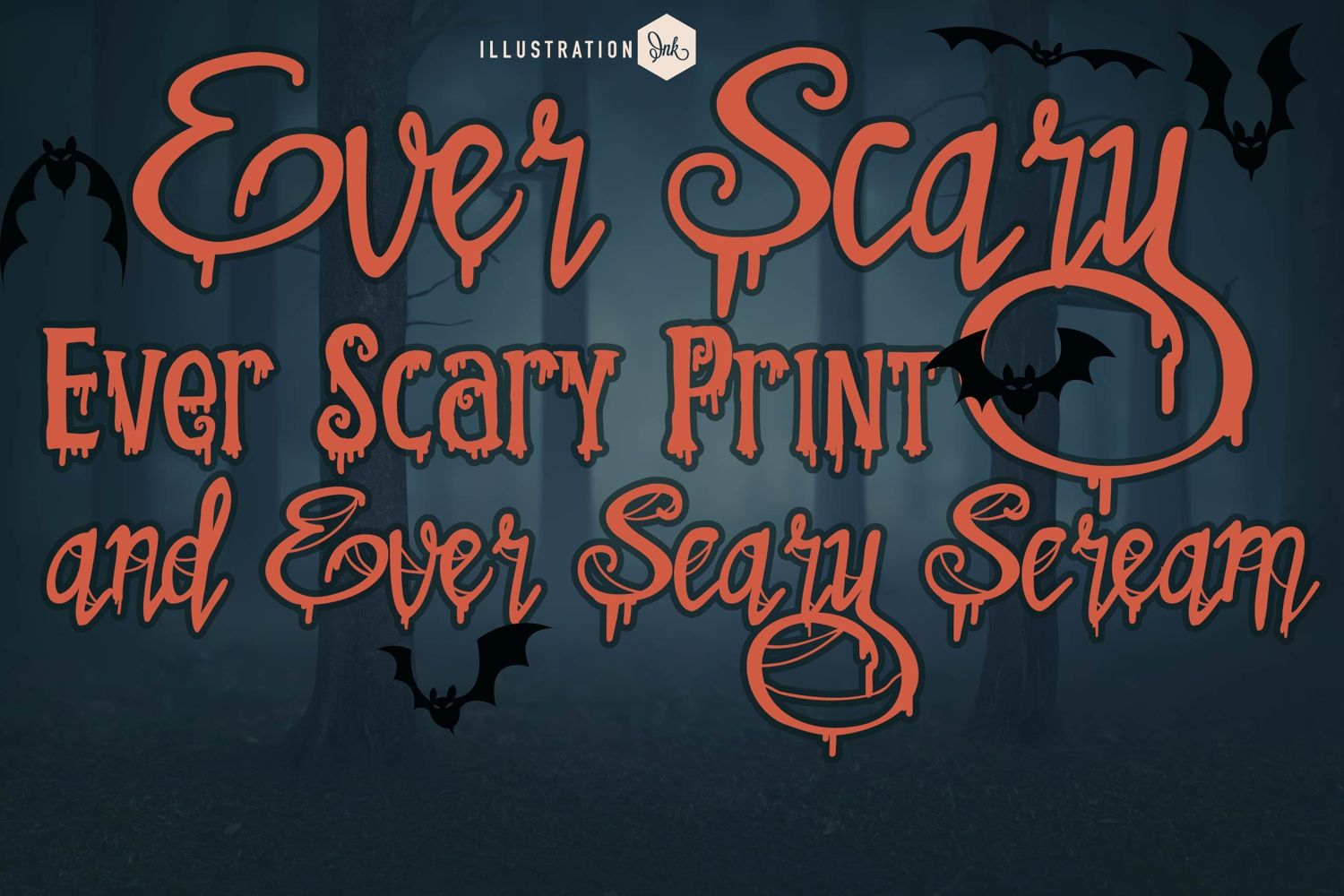
Ever Scary Font Trio
This hand-crafted font trio combines an oozy, drippy, hand-written script, a perfectly coordinated print and an extra webby script. With all family members combined of the 3 fonts, you get 12 fonts all together!
Hand-crafted fonts can be either formal or informal, and they can be used for a variety of purposes. Some of the characteristics of handwritten fonts include: The letters are not perfectly uniform in size or shape. There may be slight variations in the spacing between letters and words. The font may have a "wiggly" or "squiggly" appearance. The font may be difficult to read at small sizes. Handwritten fonts can be a great way to add a casual touch to your designs. They can also be used to create a sense of nostalgia or whimsy. However, it is important to choose a handwritten font that is appropriate for the project you are working on. A formal handwritten font may not be appropriate for a casual invitation, while an informal handwritten font may not be appropriate for a corporate document.
• The letters are not perfectly uniform in size or shape.
• There may be slight variations in the spacing between letters and words.
• The font may have a "wiggly" or "squiggly" appearance.
• The font may be difficult to read at small sizes.